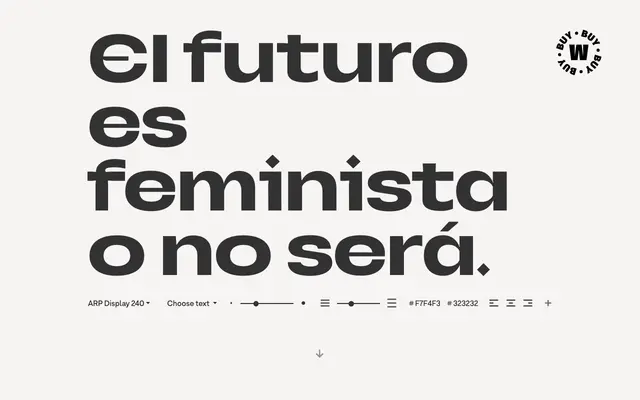
ARP
A neo-grotesque type system by Felipe Sanzana spanning five weights, with an inverted-contrast light, a sharp mid-weight, and a high-contrast heavy, plus a Display subfamily with geometric and glyphic alternates.
The family runs across ten styles in two subfamilies — ARP and ARP Display — with each offering five weights numbered 20 through 240. Short ascenders and descenders improve legibility at smaller sizes, ink traps extend usability into display contexts, and an extensive set of icons, arrows and symbols supports consistent layouts across digital and print. All 640 characters per style include variable font versions of both subfamilies.
Described explicitly as a neo-grotesk type system; combines functional grotesque structure with contrasted weights and glyphic display alternates, including an inverted-contrast light cut.